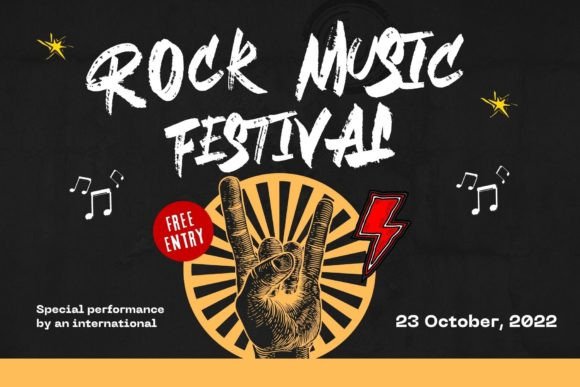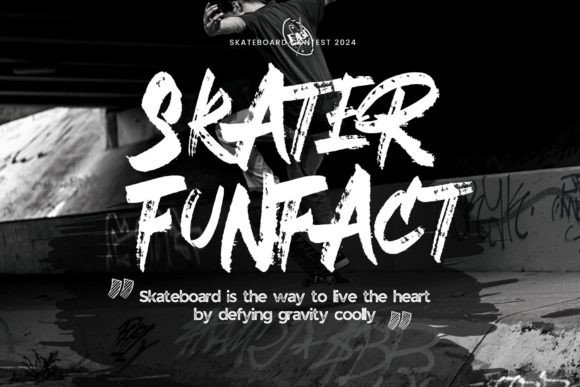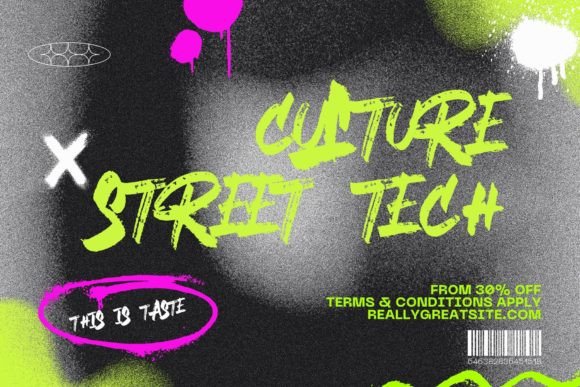
Introduction to Marfis Font
Marfis is hand painted typeface designed to help you create the look of stunning custom hand-lettering.
This lovely display font will be perfect for quotes, posters, logos, print ads, digital ads, promotional products, video bumpers, etc .
Key Features of Marfis Font
Marfis Font offers exceptional quality and versatility, making it a valuable addition to your design toolkit. Whether you’re creating for personal projects or commercial use, Marfis Font delivers professional results.